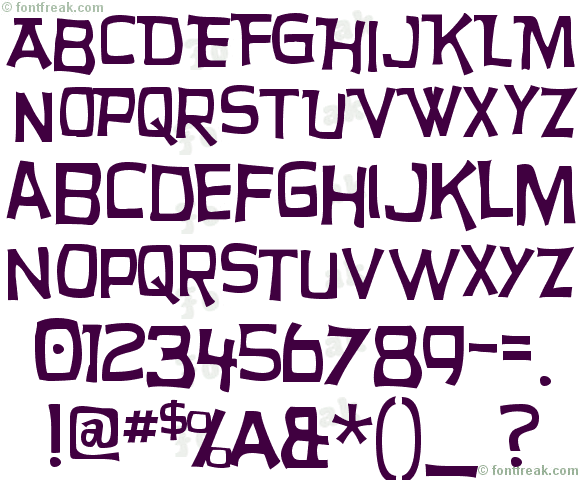
Hurry Up
About Hurry Up
The Hurry Up font, designed by Ray Larabie in 1998, is a unique display typeface that captures a sense of urgency and dynamism. As a decorative font, it features bold, playful letterforms with an energetic slant that makes it instantly eye-catching. The stroke weight is consistent, providing a solid appearance while maintaining a sense of whimsy through its rounded edges and slightly exaggerated forms. The font's spacing is carefully balanced, ensuring readability even at larger sizes, which enhances its visual impact.
Ideal for various applications, the Hurry Up font excels in contexts where boldness and creativity are paramount. It works wonderfully for event posters, where its lively design can grab attention and convey excitement. Additionally, it shines in children's book covers, where playful typography complements engaging illustrations. The font also makes a statement in branding for cafes or food trucks, helping to create a fun and inviting atmosphere. Graphic designers can leverage this font for social media graphics, ensuring their posts stand out in crowded feeds.
What truly sets the Hurry Up font apart is its ability to evoke a sense of fun and movement, making it perfect for creative projects that require a punchy visual appeal. Whether you’re designing a flyer, crafting an engaging social media post, or creating playful merchandise, the Hurry Up font free download is a fantastic addition to any designer's toolkit.